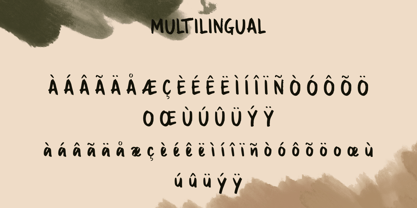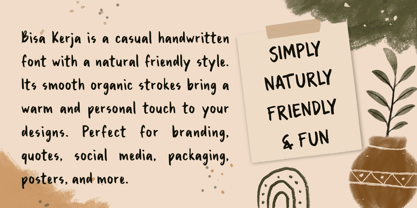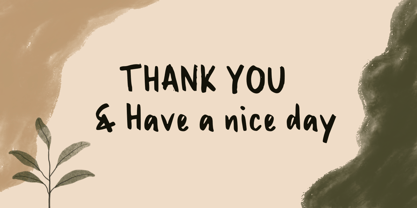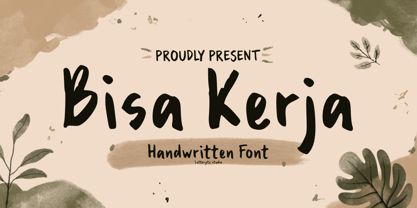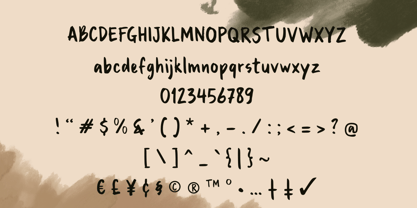
Bisa Kerja
by Letterytz CalliType
The Bisa Kerja Font Family was designed by Wahyu Eka Prasetya, Dian Angga Marytama and published by Letterytz CalliType. Bisa Kerja contains 1 styles. More about this family
Bisa Kerja – Casual Handwritten Brush Font
Bisa Kerja is a casual handwritten brush font with a natural, friendly, and expressive personality. Crafted with smooth organic strokes and playful letterforms, this font brings a warm handmade touch to any creative project.
Its relaxed brush style creates an authentic and approachable feel, making it perfect for branding, social media posts, quotes, packaging, posters, merchandise, and modern lifestyle designs. The slightly imperfect handwritten details add charm and character while keeping the font highly readable.
Whether you are creating fun branding, creative content, or stylish typography designs, Bisa Kerja delivers a clean handcrafted aesthetic with a modern casual vibe.
Features:
✔ Casual handwritten brush style
✔ Natural and organic strokes
✔ Friendly and playful character
✔ Perfect for branding and social media
✔ Great for posters, packaging, and quotes
✔ Easy to read and versatile
✔ Multilingual support
Designers: Wahyu Eka Prasetya, Dian Angga Marytama
Foundry: Letterytz CalliType